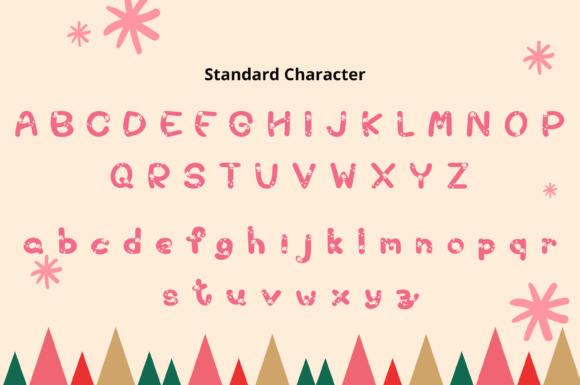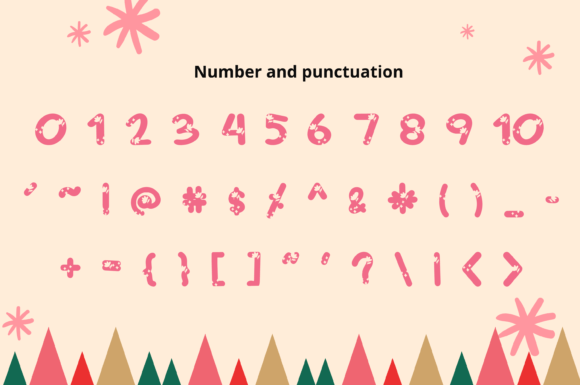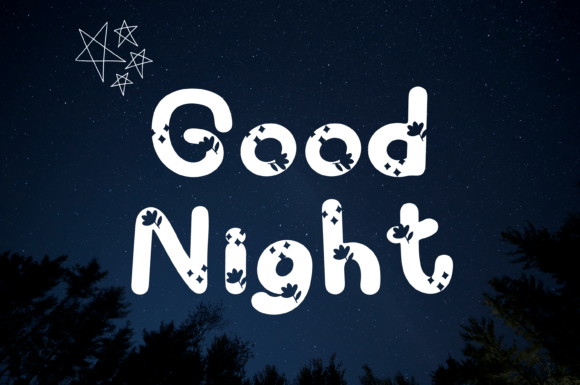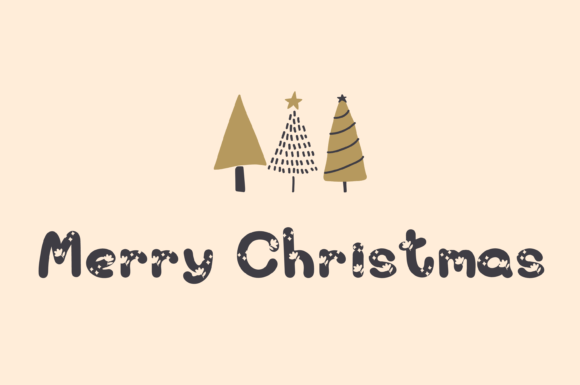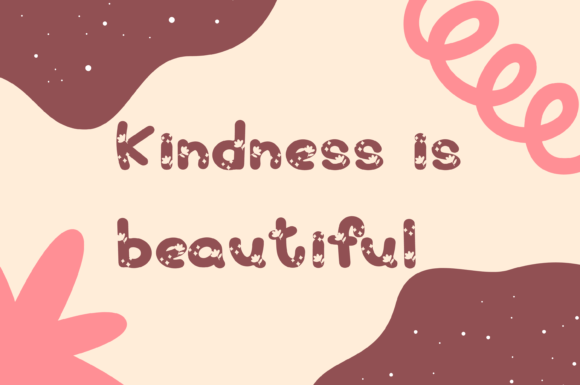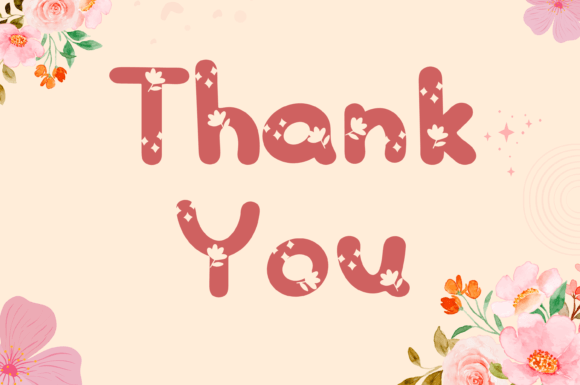
Introduction to Flower Star Font
Flower Star is a lovely and cute display font.
Flower Star Font offers exceptional quality and versatility, making it a valuable addition to your design toolkit. Whether you’re creating for personal projects or commercial use, Flower Star Font delivers professional results.